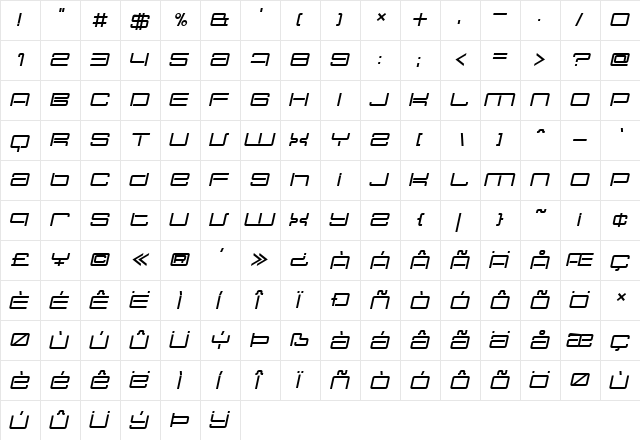
Nec plus ultra Italic
Design Context for Nec plus ultra Typeface
Nec plus ultra is a composed and adaptable typeface that performs quietly and consistently across a wide range of design contexts. Its italic angle brings a sense of urgency and motion to the letterforms.
Pro Tip: Use Nec plus ultra for emphasis, pull quotes, and subheadings where its slanted energy can add rhythm to the layout.